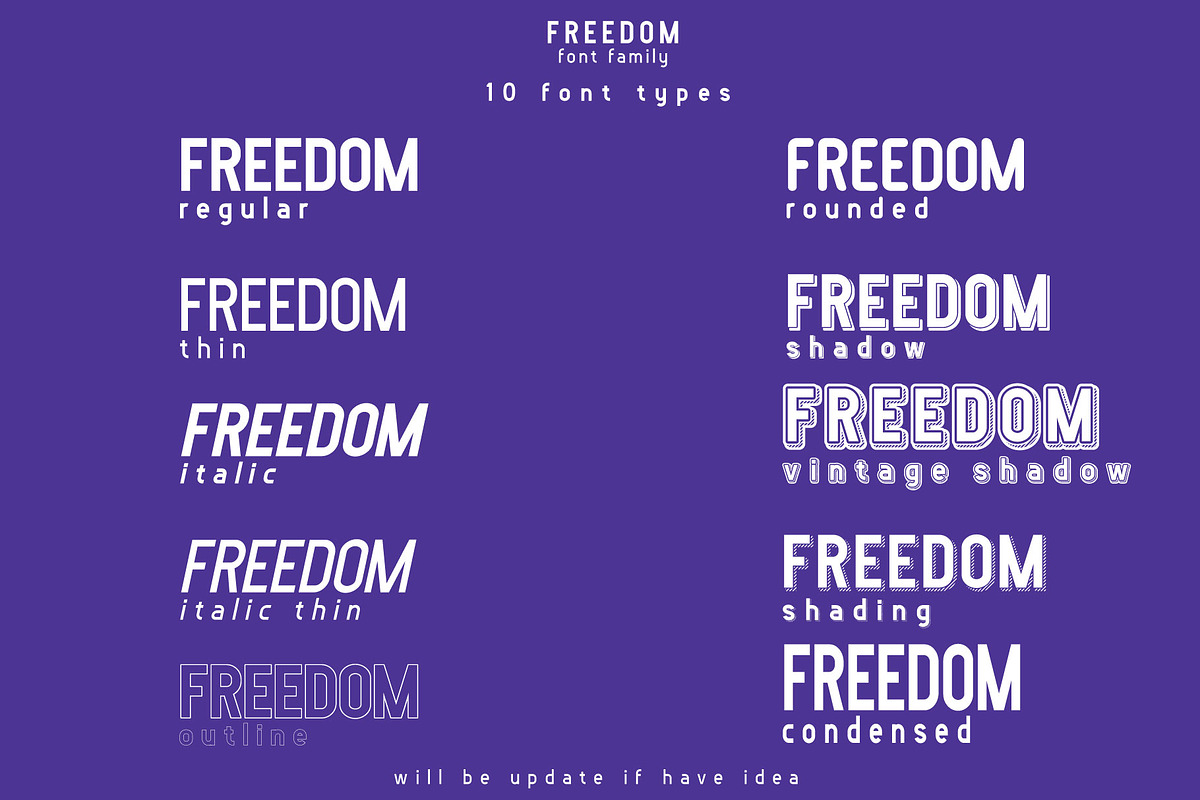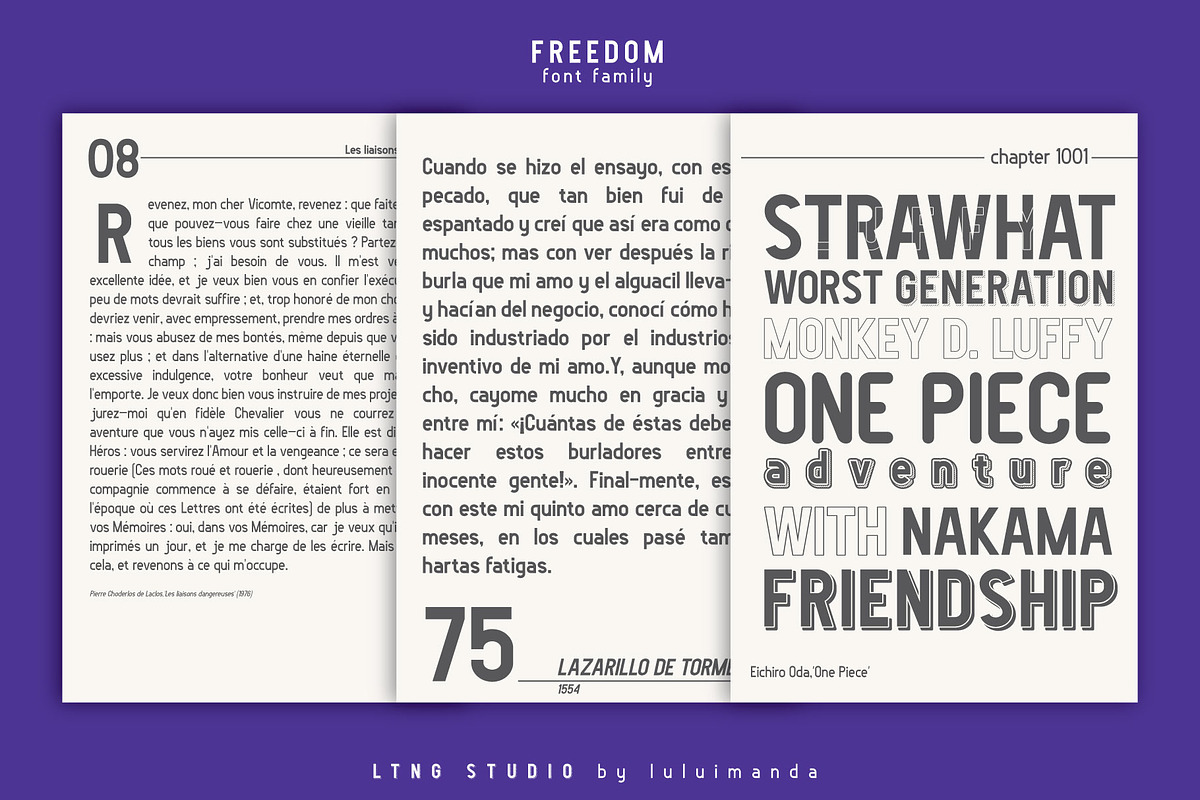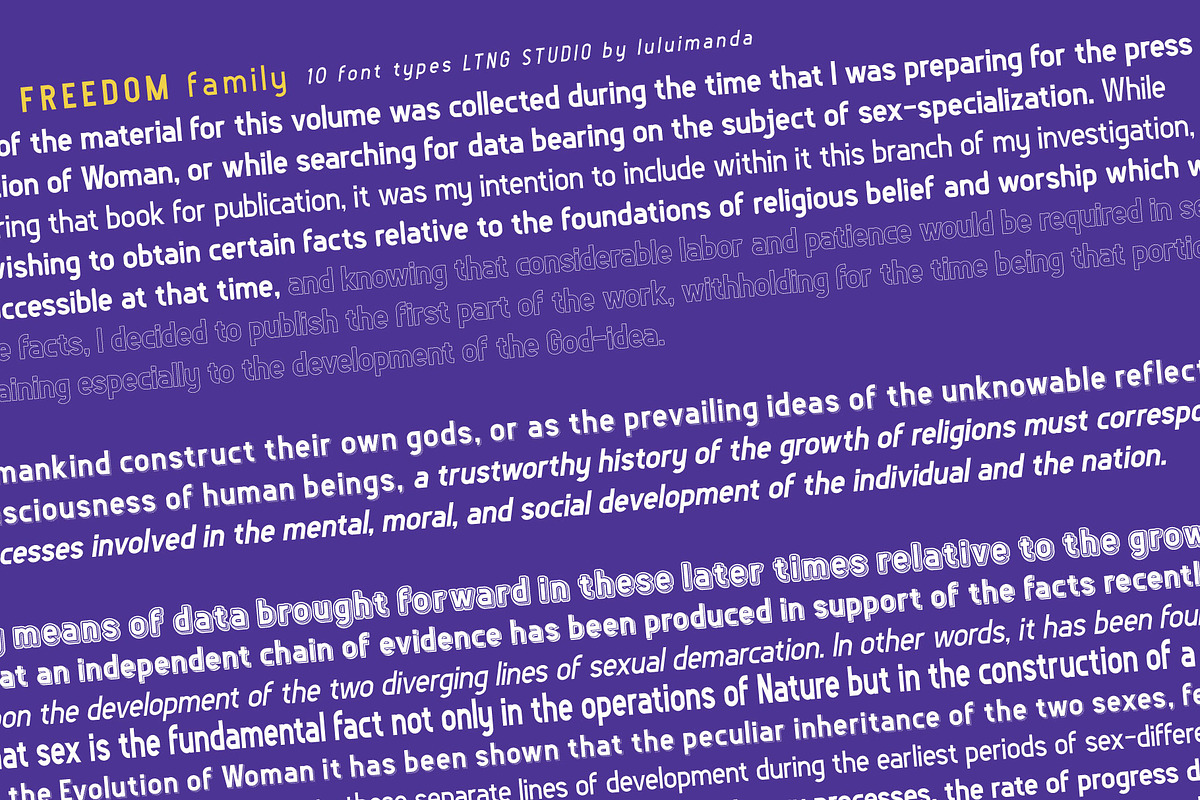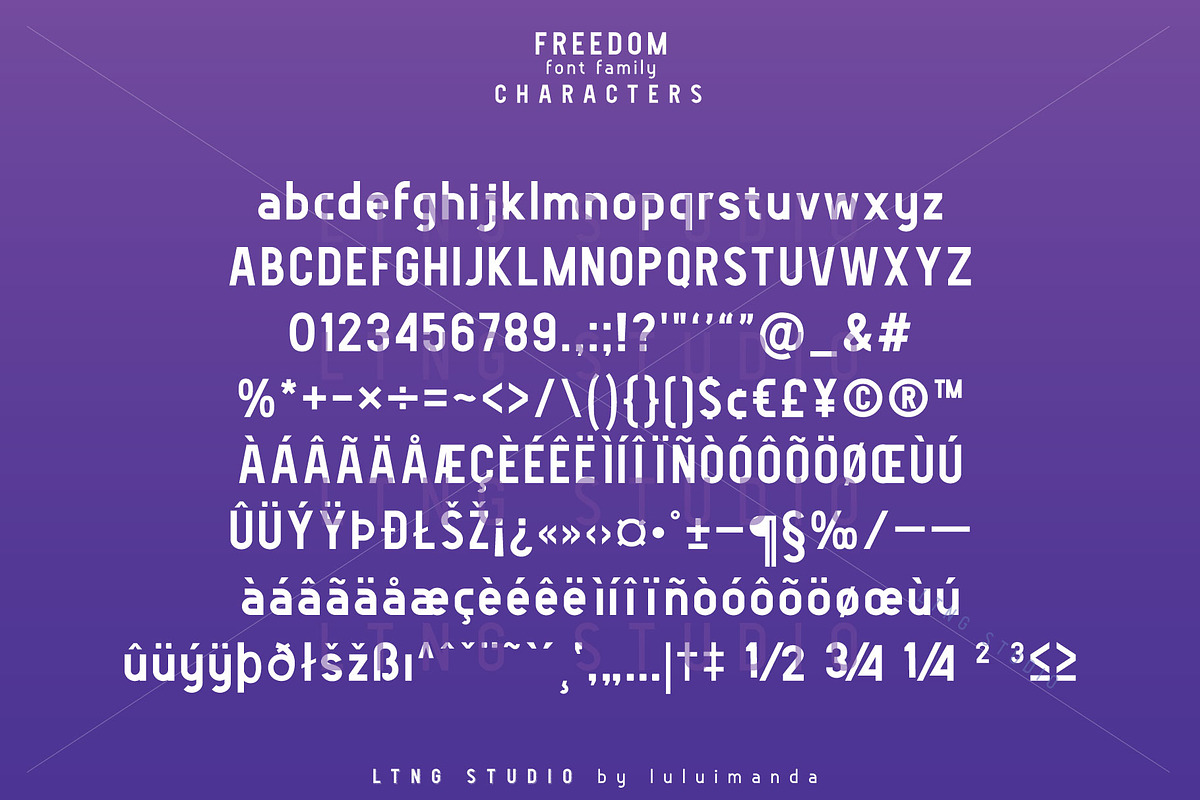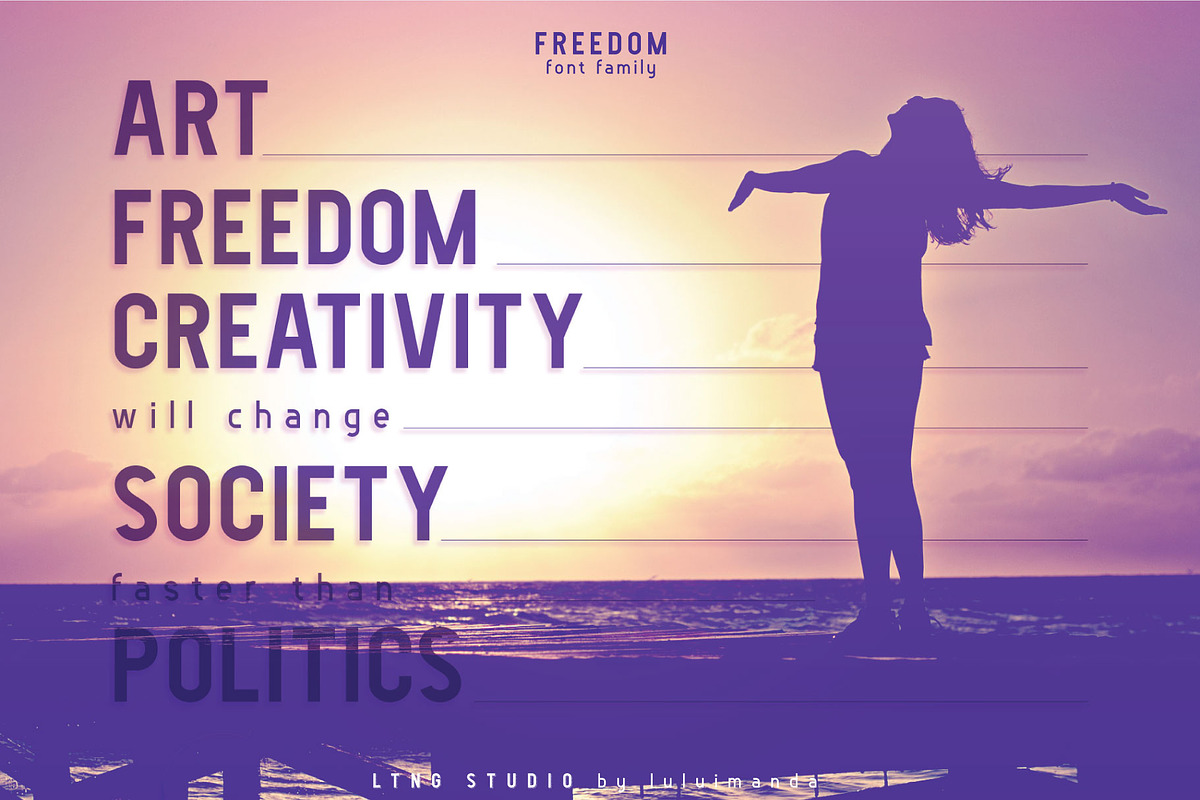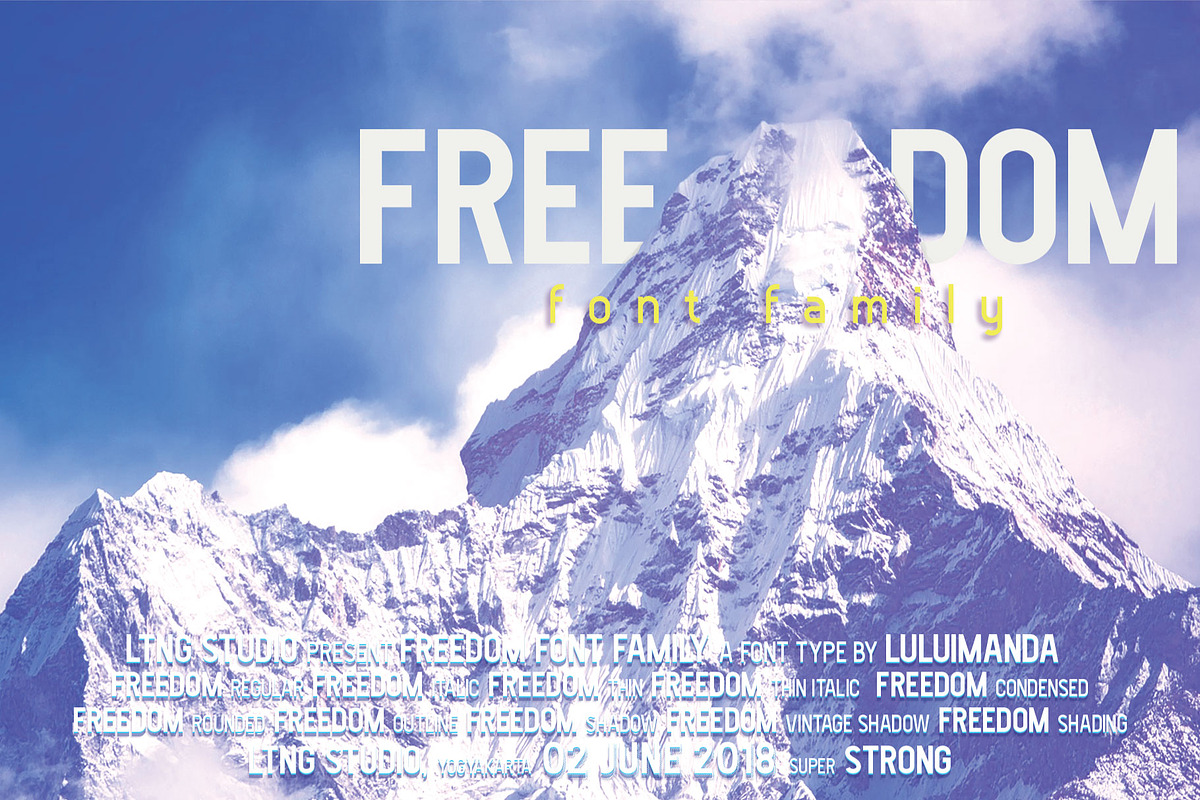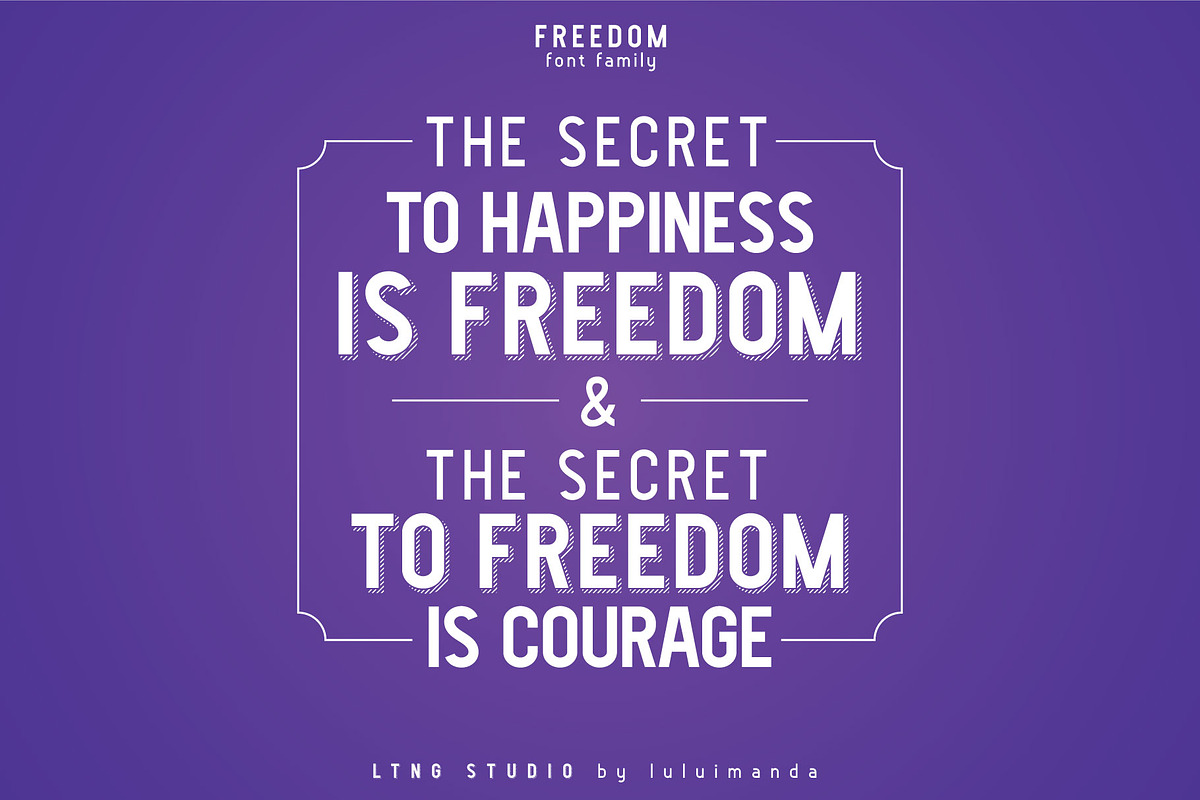
FREEDOM font family
SUPER STRONG - BOLD - VARIOUS
FREEDOM is a super strong font family not only capital but lowercase and various display fonts. FREEDOM is bold in uppercase but have smooth curve side in lowercase. Each font in family can stand on its own or combine with others family font.
FREEDOM includes 10 various fonts :
FREEDOM vintage shadow
USE : FREEDOM is great in any branding, logos, magazine film, typography project, book and cover. Not only capital but also lowercase is give you full range to explore the font. You can use for your modern type of project even in vintage type of project.
- FREEDOM includes 10 various fonts : FREEDOM regular FREEDOM italic FREEDOM thin italic FREEDOM condensed FREEDOM rounded FREEDO